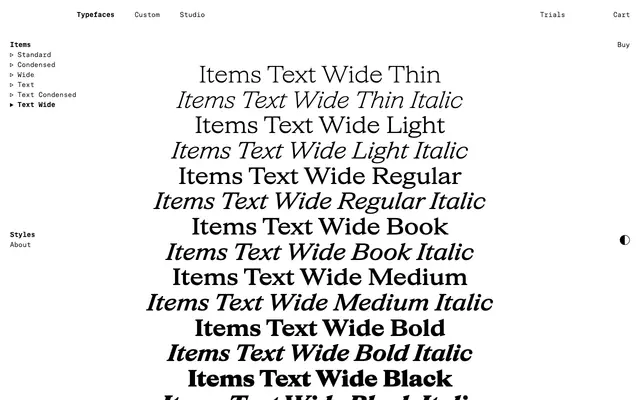
Items Text Wide
The wide text cut of Items Text: a roomier transitional serif for body copy, exploring what Times-lineage forms look like when freed from space constraints.
Items Text Wide widens the body-copy proportions of the Items Text branch. The foundry describe Items Wide as opening a whole new dimension, exploring what a transitional serif would look like if freed from space constraints; the Text version brings that wider stance into running text, with subdued contrast and open spacing for legibility. Seven weights including Book are matched with italics, and the cut connects to Items Standard and Items Condensed and to the display branch as part of the wider Items system.
The wide cut of the Items Text branch; subdued stroke contrast and open spacing of the text branch carried into a wider proportion, exploring what a transitional serif looks like when freed from space constraints.